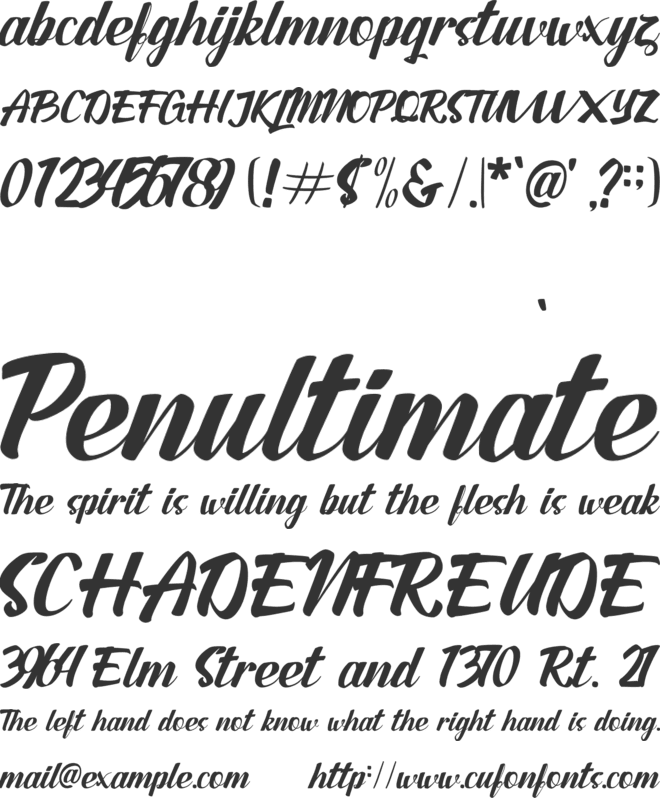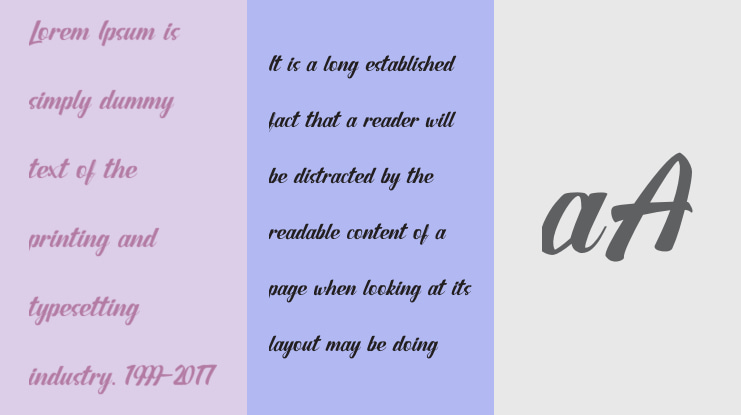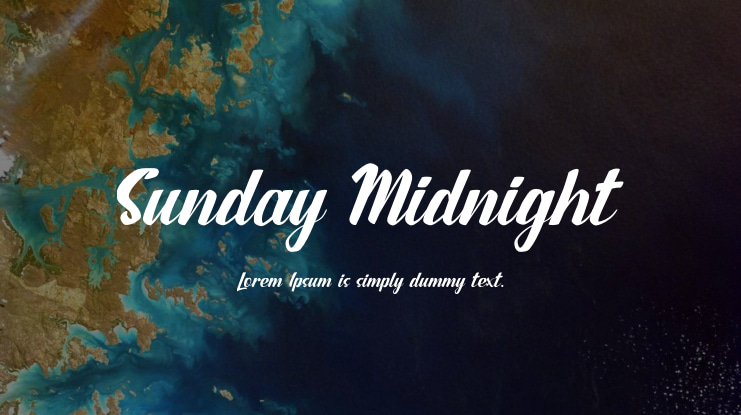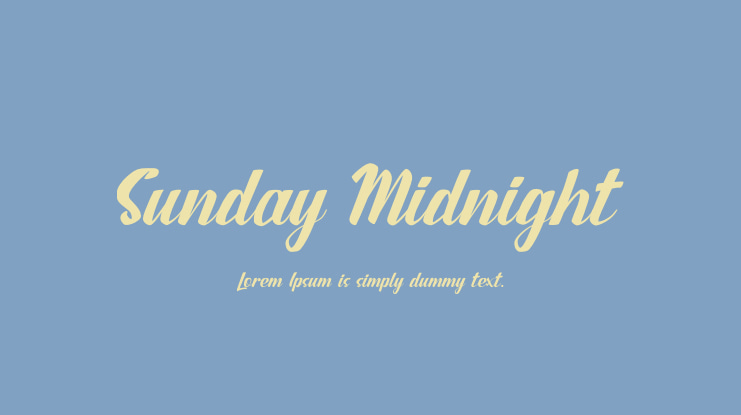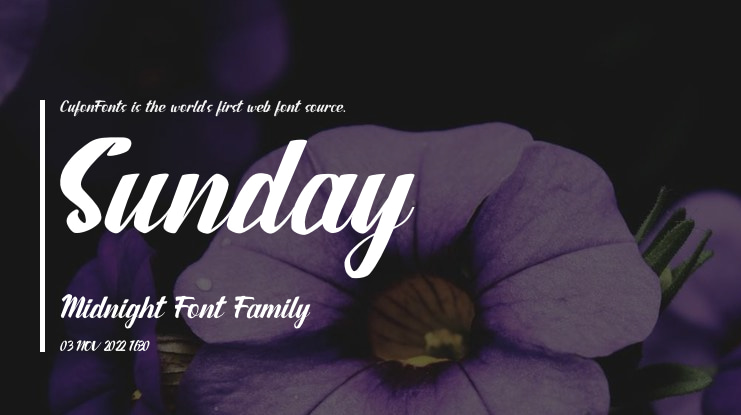
Sunday Midnight Font
Sunday Midnight is an elegant script font that exudes sophistication and charm. With graceful curves and flowing lines, it embodies a sense of timeless beauty. It's perfect for adding a touch of refinement to invitations, branding, or any project that requires a stylish and captivating script font.